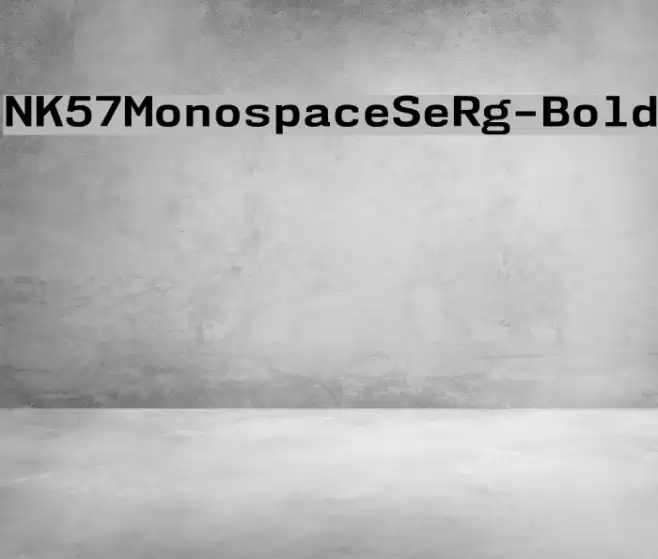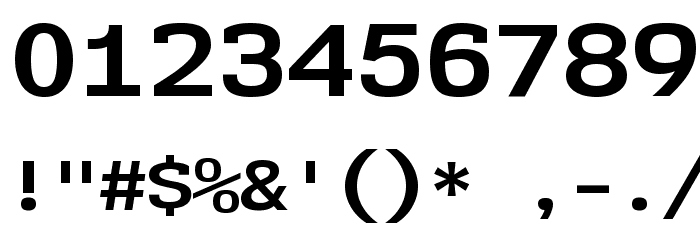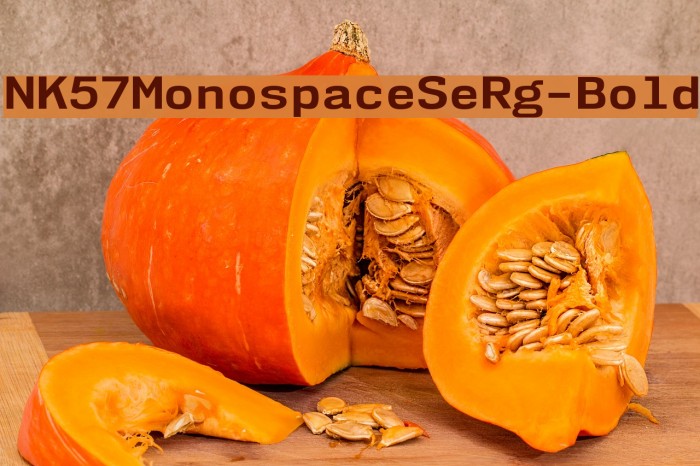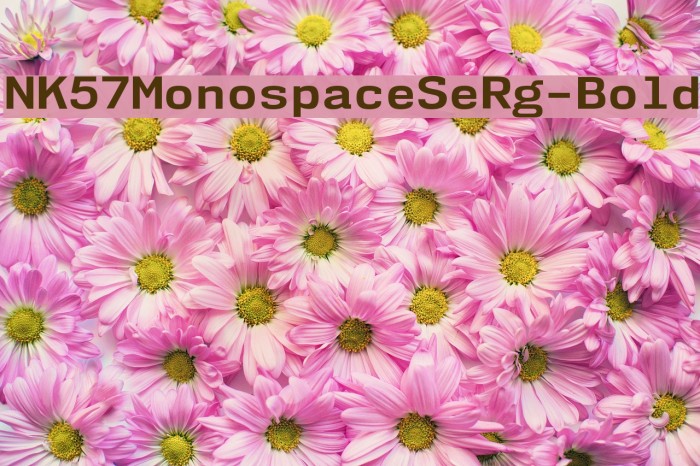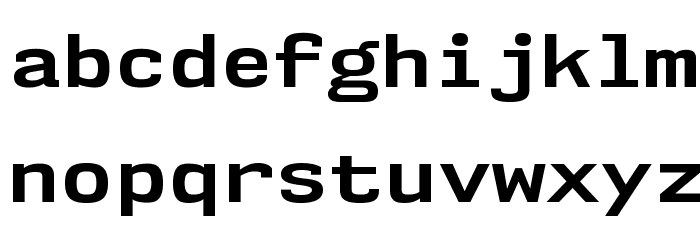
NK57MonospaceSeRg-Bold Font
NK57MonospaceSeRg-Bold Description
This font features a clean and structured design, characterized by its monospaced nature where each character occupies the same amount of horizontal space. The bold weight enhances its readability and impact, making it suitable for coding and technical documents. The characters are well-defined with a modern aesthetic, and the consistent spacing ensures clarity. The uppercase and lowercase letters maintain a uniform appearance, while the numerals and special characters are distinct and easy to distinguish. This font's straightforward style is both functional and visually appealing.
A bold, monospaced font with a clean and modern design from Basic fonts.
- Proposed Projects: Ideal for coding, technical documentation, and any project requiring clear and consistent text alignment.
- Use Case: Coding, Technical documents
- Is Fixed Pitch: Yes